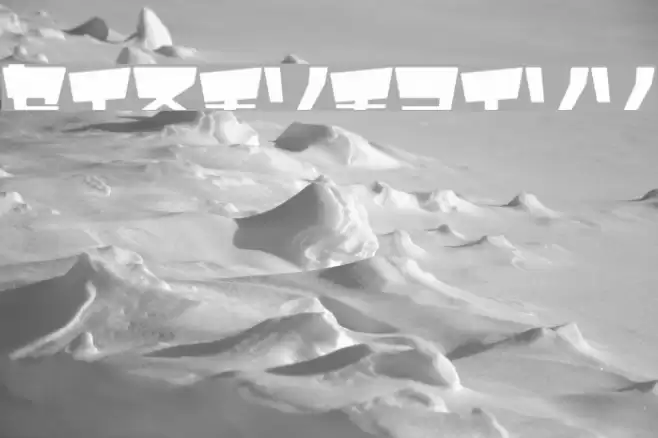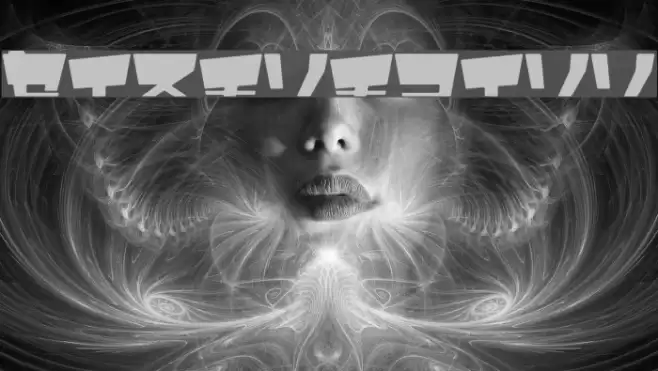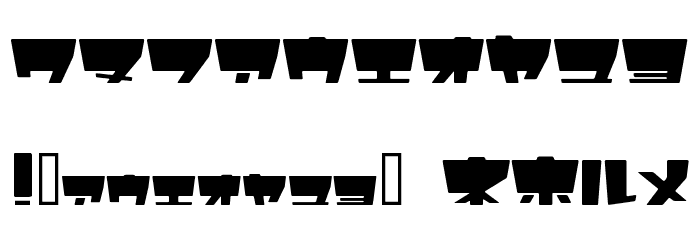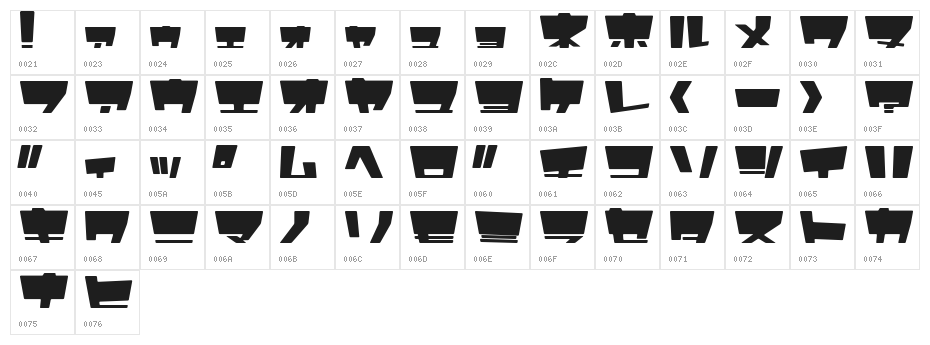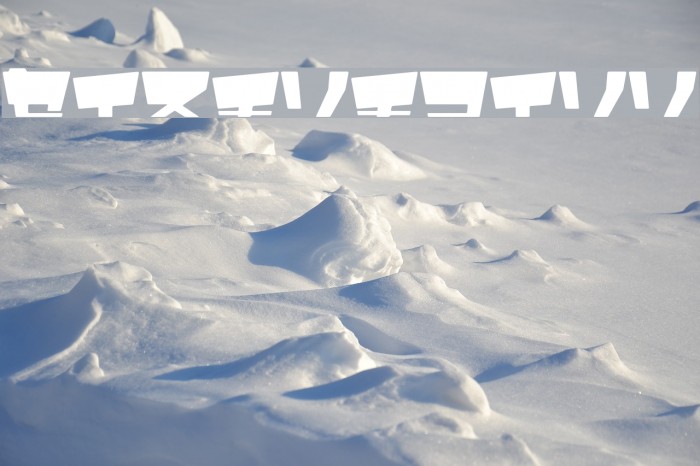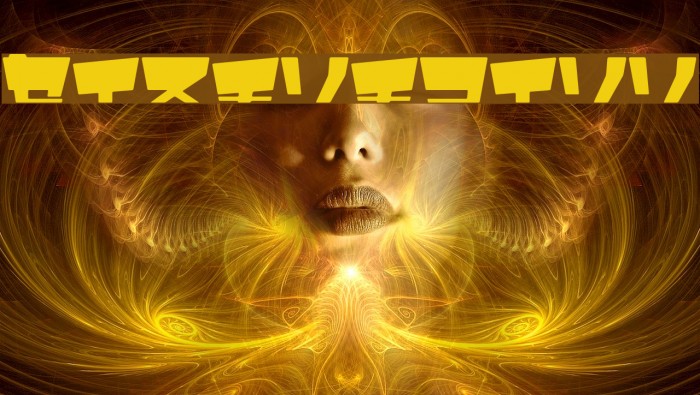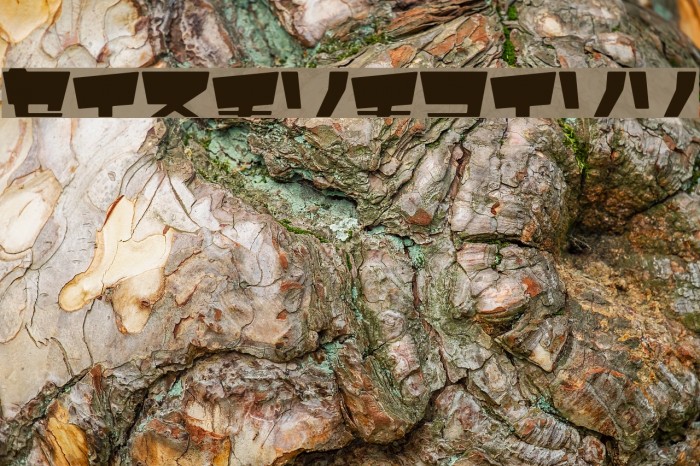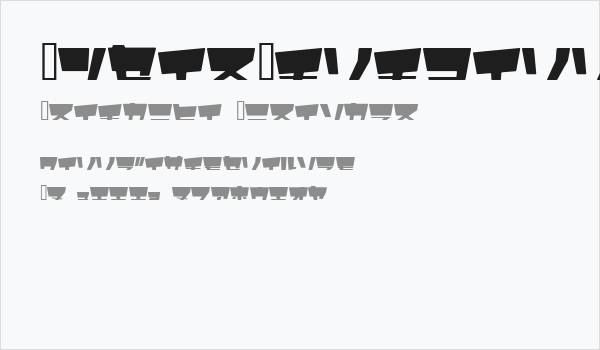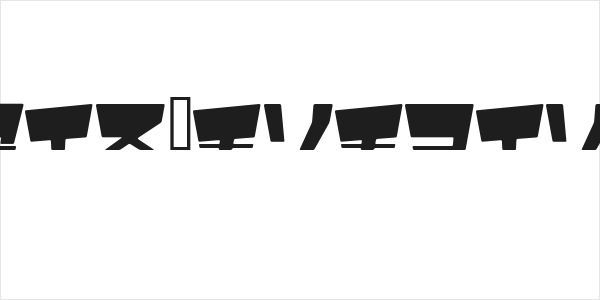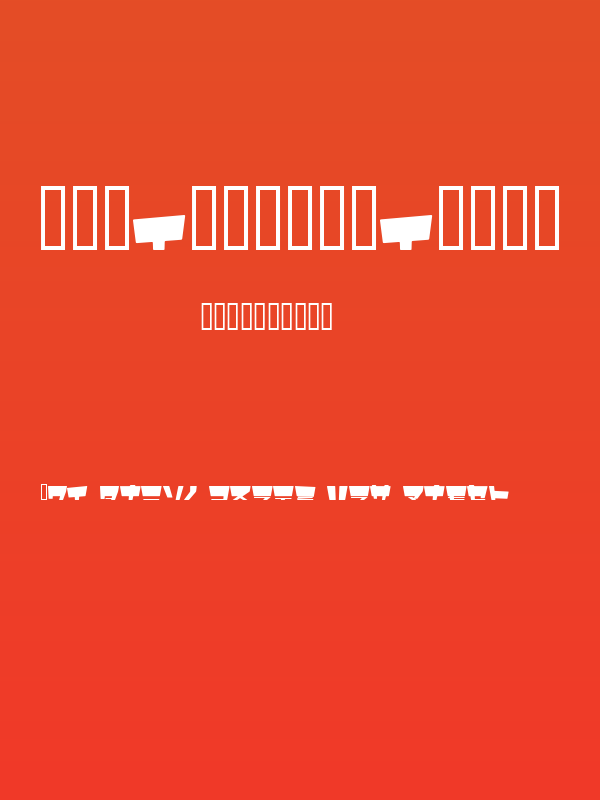
HyperLalabellJN Font
HyperLalabellJN Description
This font features a bold and striking design with a distinctly modern and geometric aesthetic. The characters are crafted with sharp angles and thick strokes, creating a sense of strength and impact. The uppercase letters are particularly prominent, with a blocky appearance that commands attention. The lowercase letters maintain the same bold style, ensuring consistency throughout the typeface. Numbers and special characters are designed to match the overall boldness, making them suitable for various applications. The font's unique style makes it ideal for projects that require a strong visual presence.
A bold, geometric font with a modern and impactful design from Asian fonts.
- Proposed Projects: Ideal for branding, posters, headlines, and any project needing a strong visual impact.